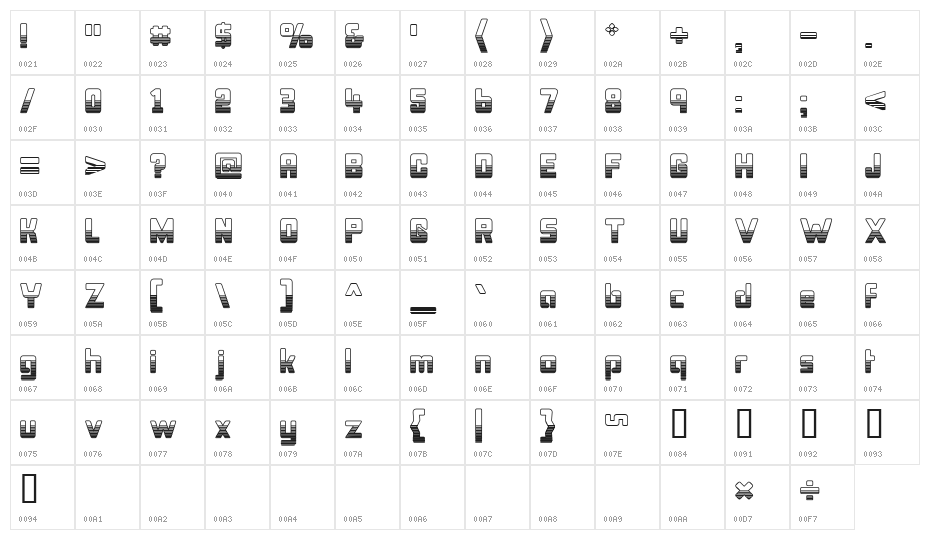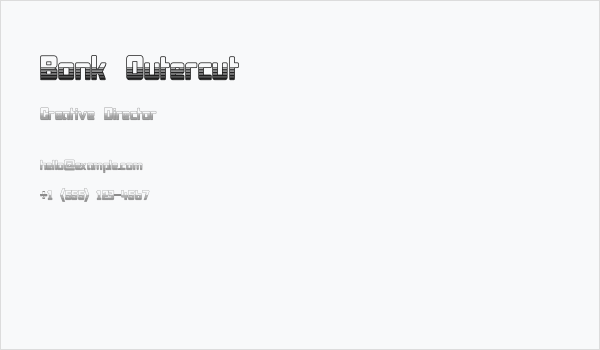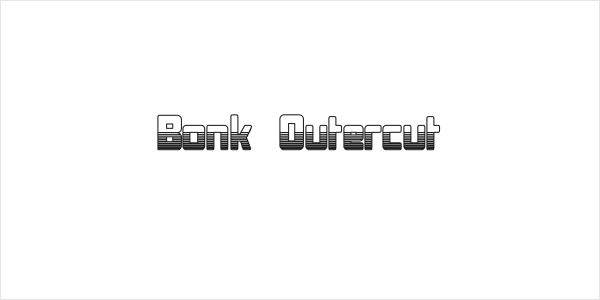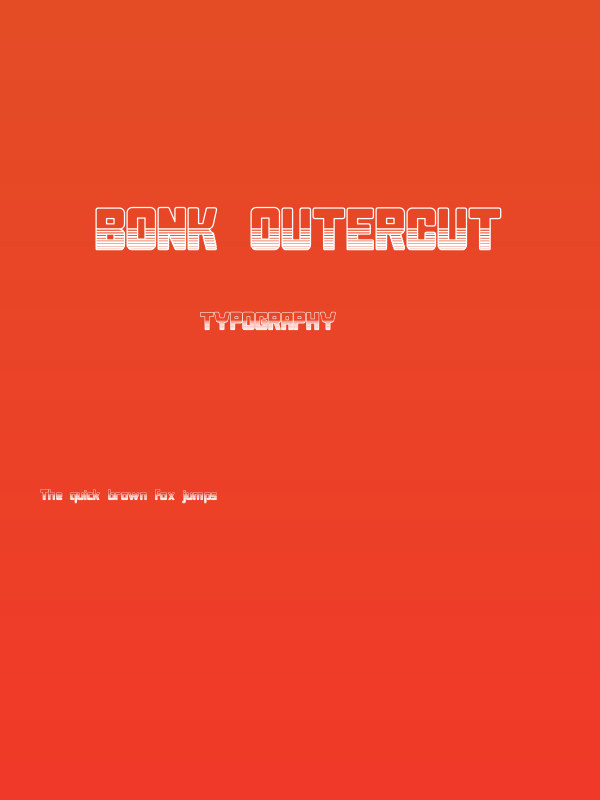
Bonk Outercut Font
Bonk Outercut Description
This font exhibits a bold and striking design with a layered, three-dimensional effect. Each character is outlined with multiple horizontal lines, creating a sense of depth and movement. The uppercase and lowercase letters maintain a consistent style, with angular and geometric shapes that convey a modern and futuristic aesthetic. The numerals and special characters are designed to match the boldness and complexity of the alphabet, making them suitable for attention-grabbing headlines or creative projects. The overall appearance is dynamic and visually engaging, ideal for designs that require a strong visual impact.
| Proposed Projects | Ideal for posters, logos, video game graphics, and any project needing a modern, dynamic look. |